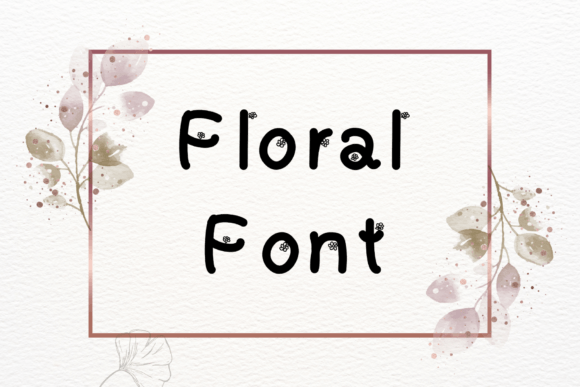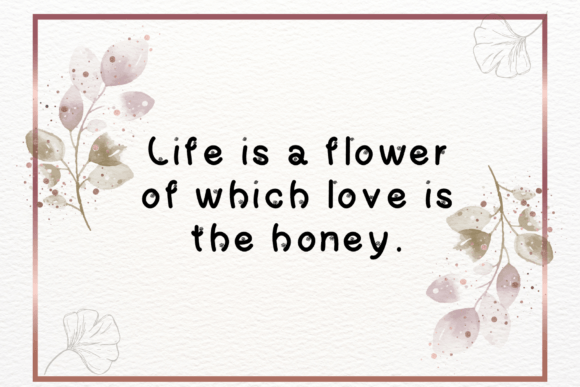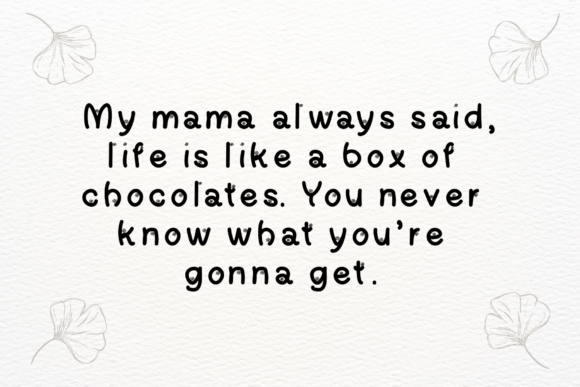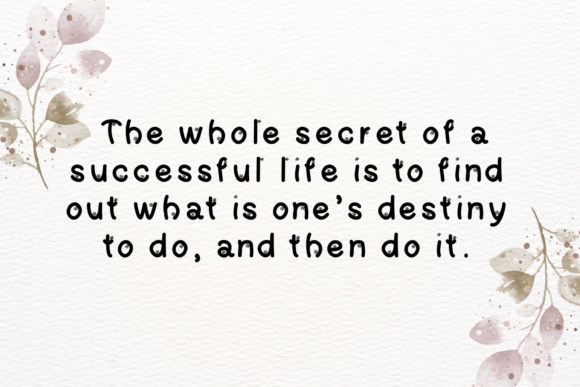
Floral Font
About Floral Font
Floral is a handwritten font decorated with flowers. With this font your messages will become really super cute. This font is perfect for posters, greeting cards, t-shirts, branding materials, quotes and any other amazing projects you are working on.